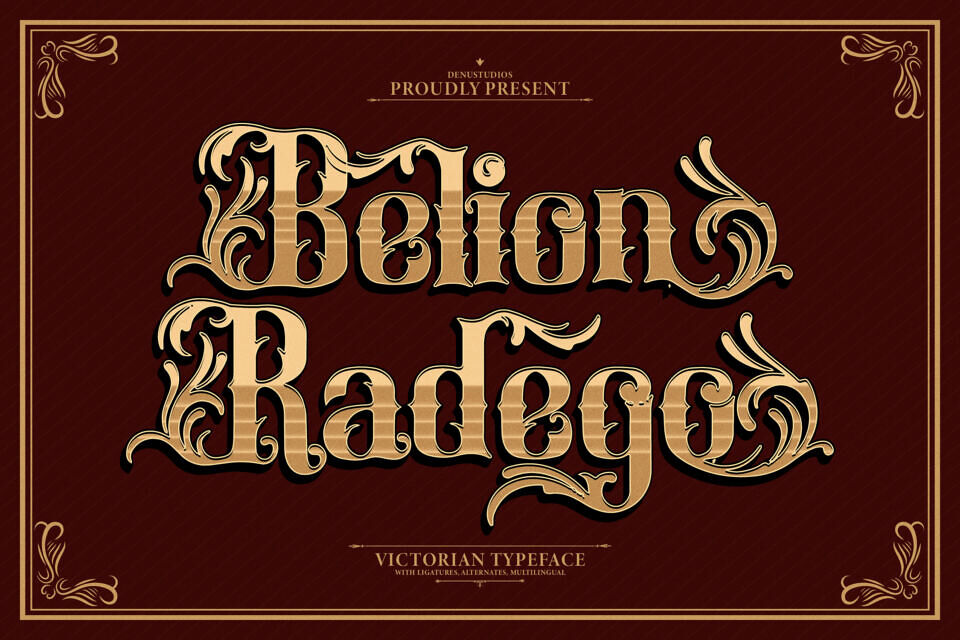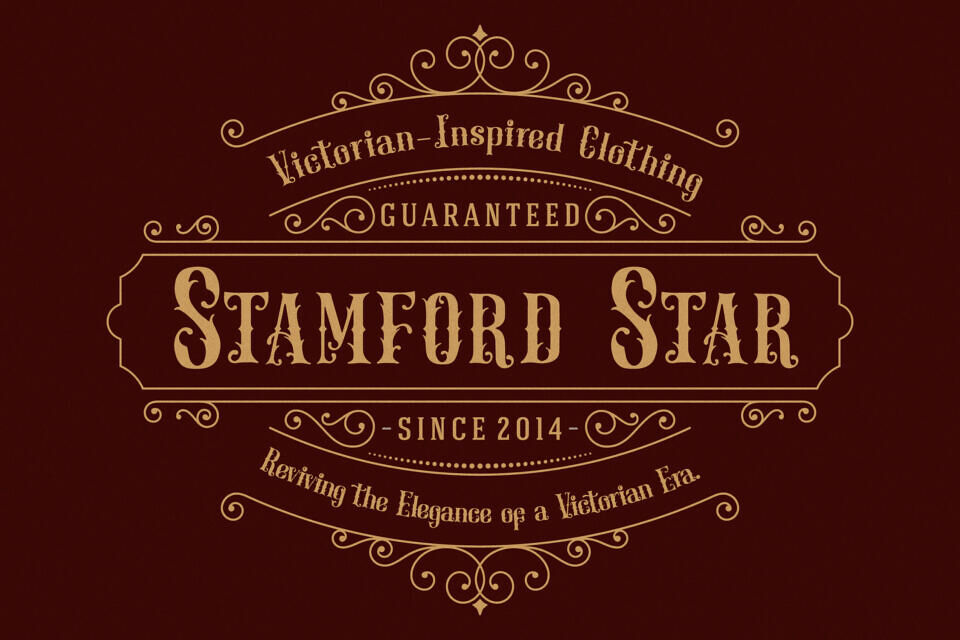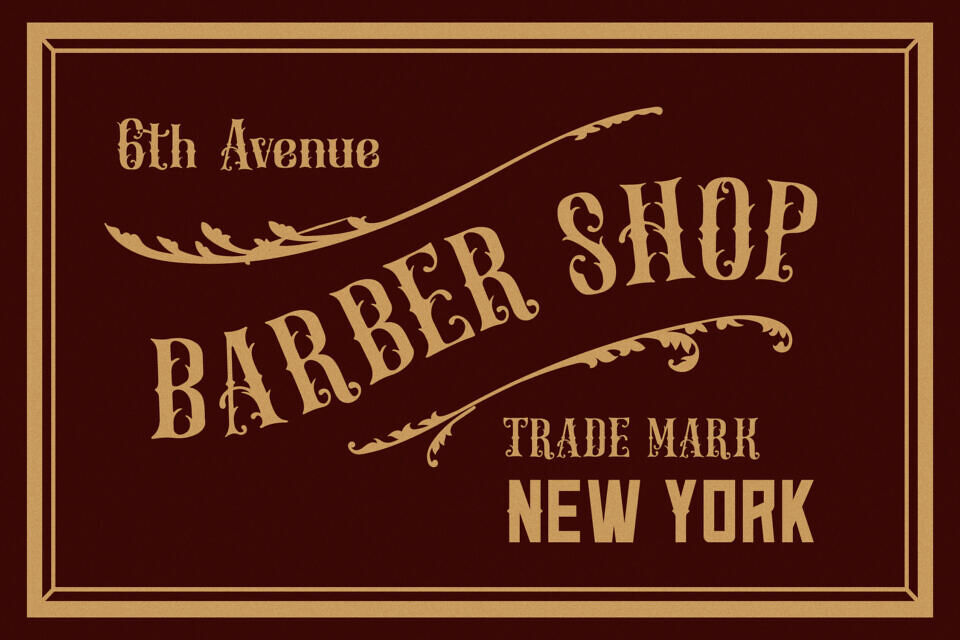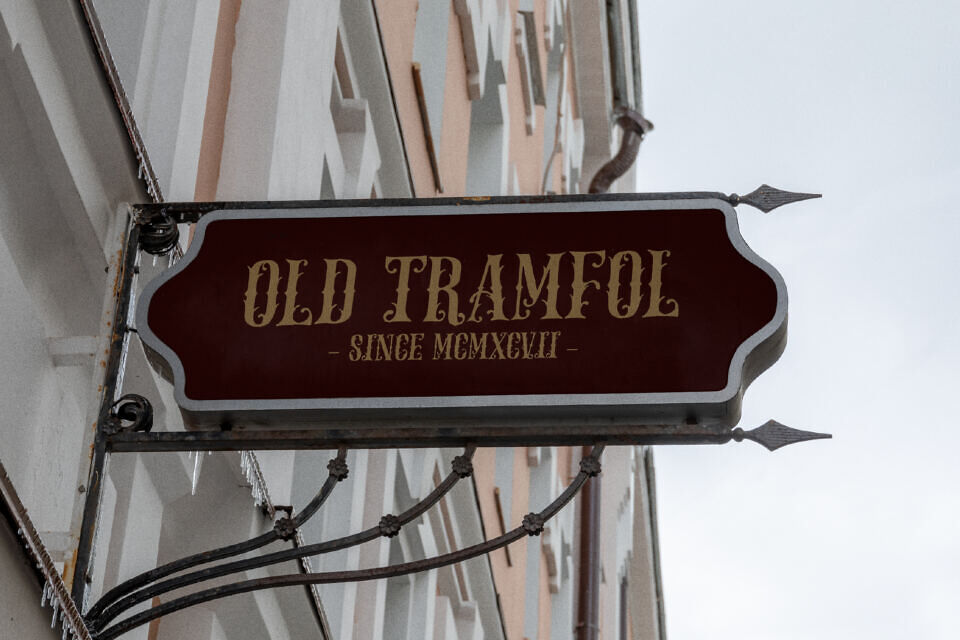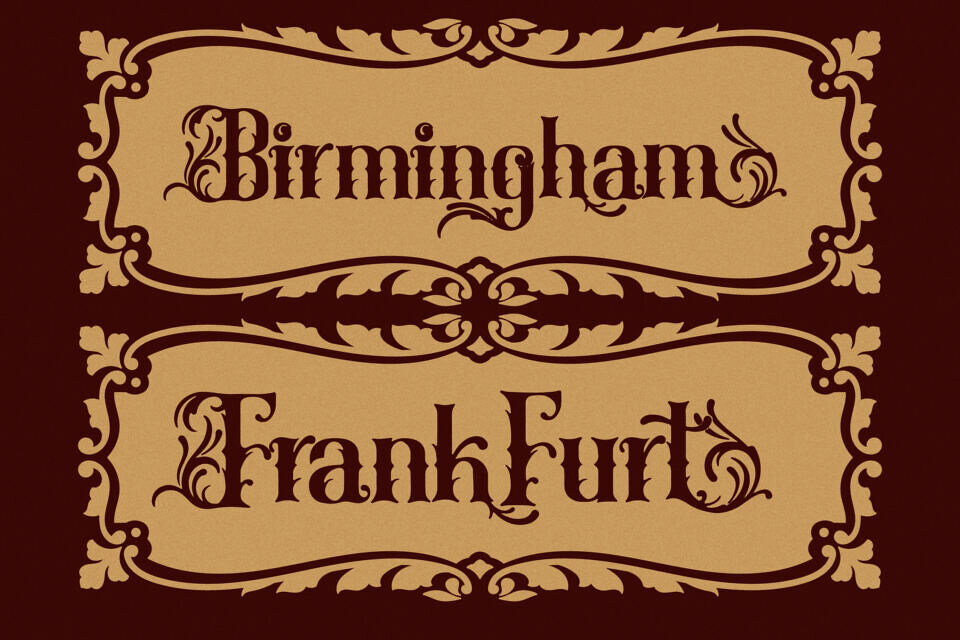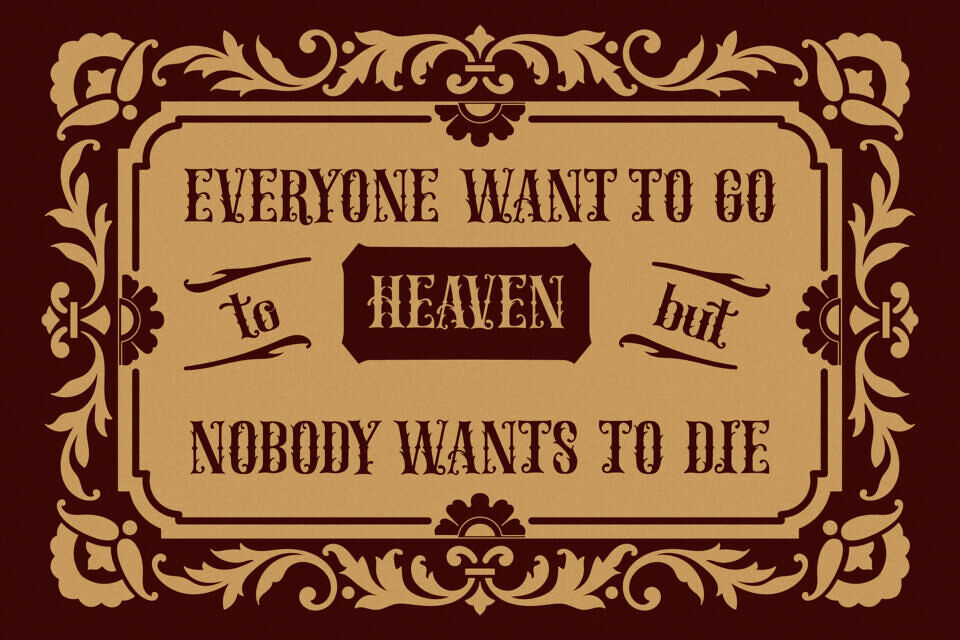
Belion Radego Font
Belion Radego is a bold Victorian typeface with intricate blackletter influences, designed to bring elegance and dramatic flair to any project. Its ornate details, flowing swashes, and vintage aesthetic make it ideal for logos, branding, posters, packaging, and book covers.
Featuring ligatures, alternates, and multilingual support, it offers strong versatility while maintaining a classic, luxurious feel inspired by historical typography styles.